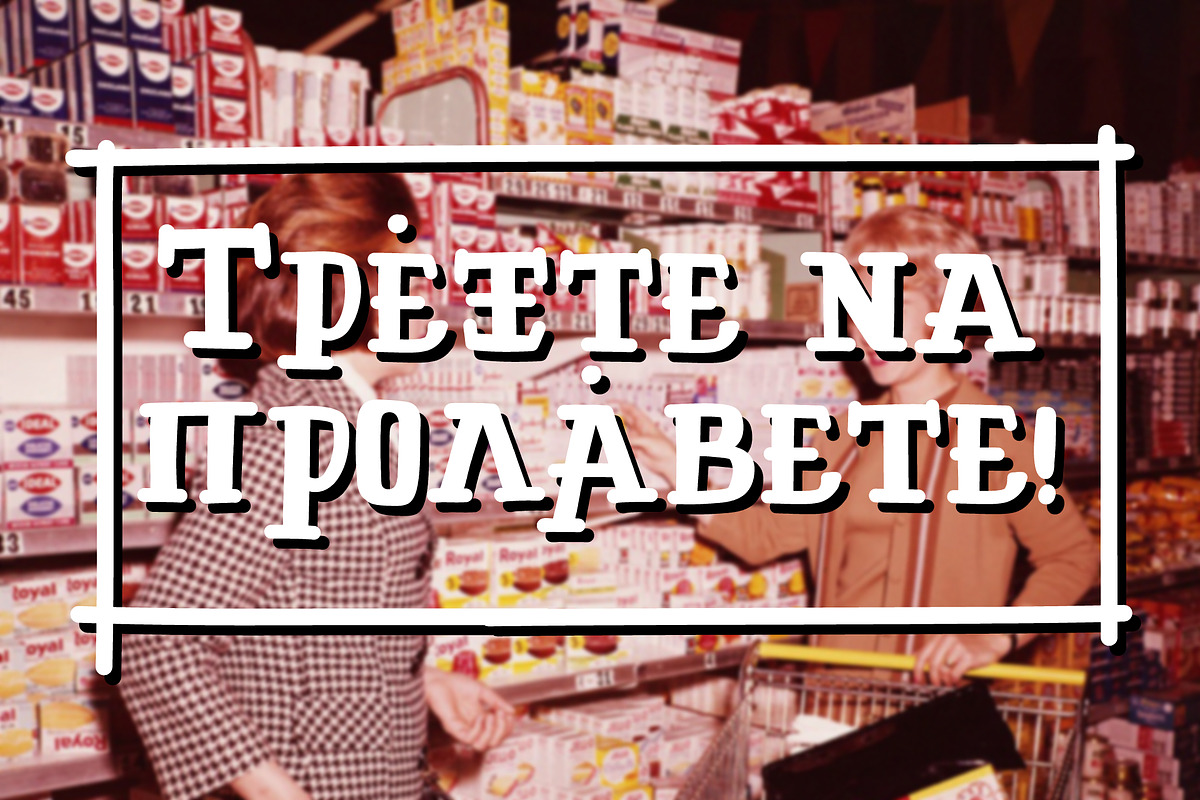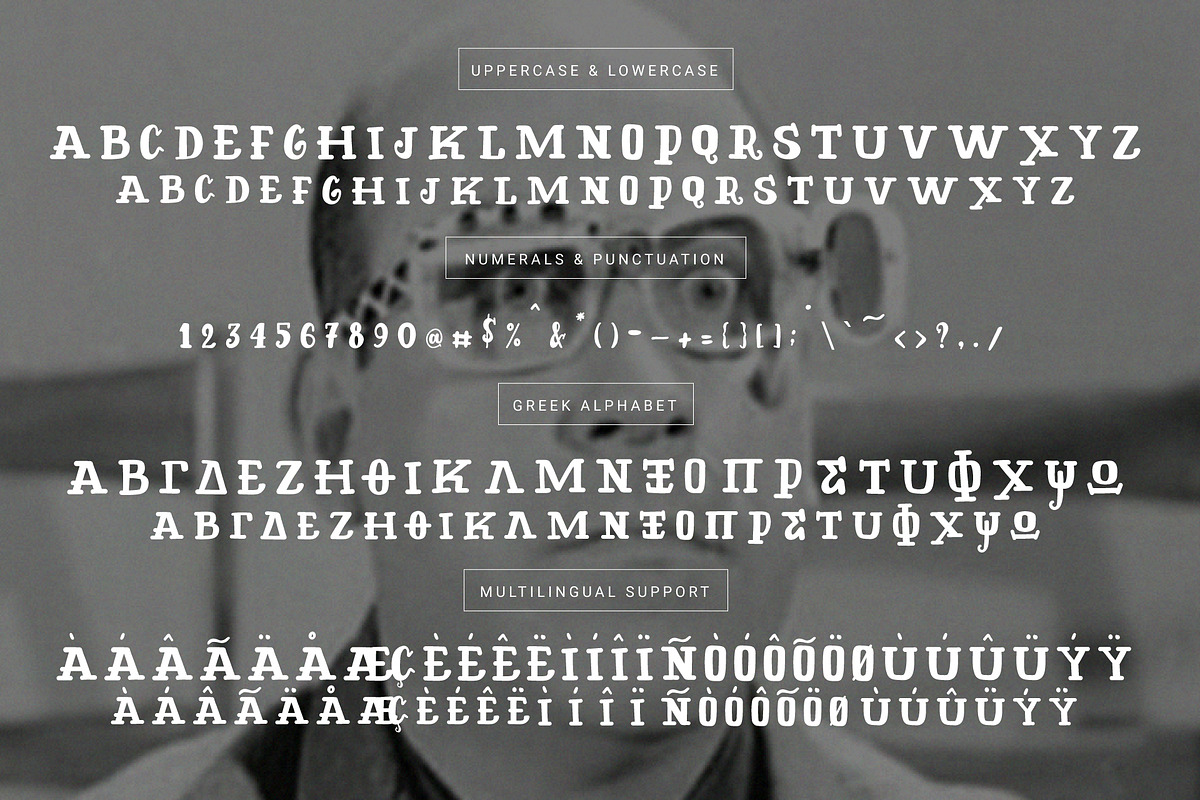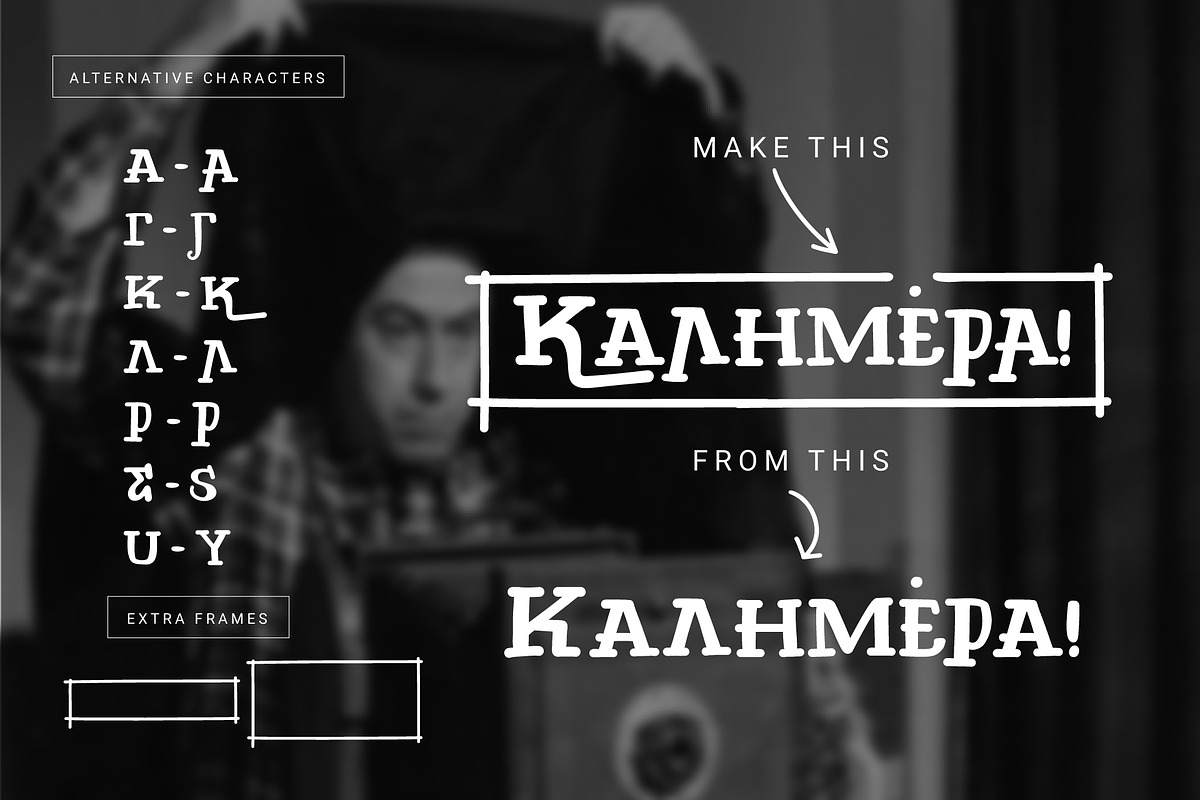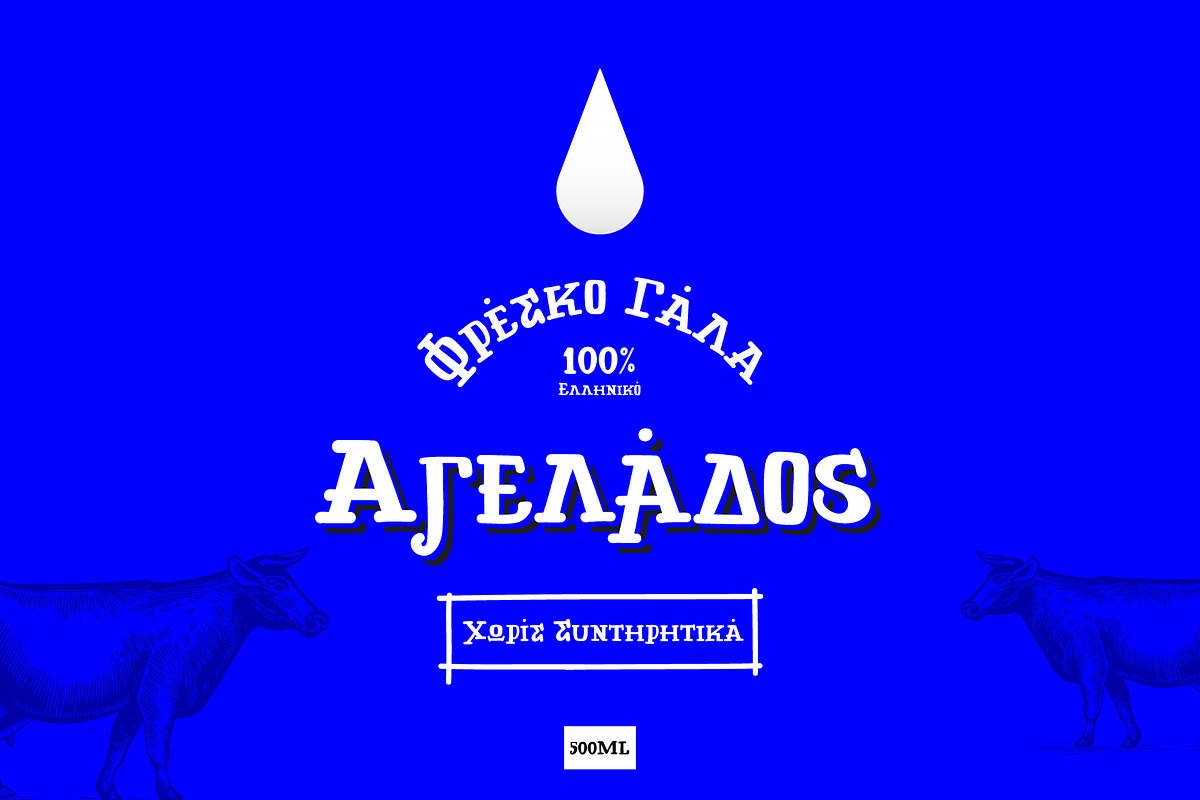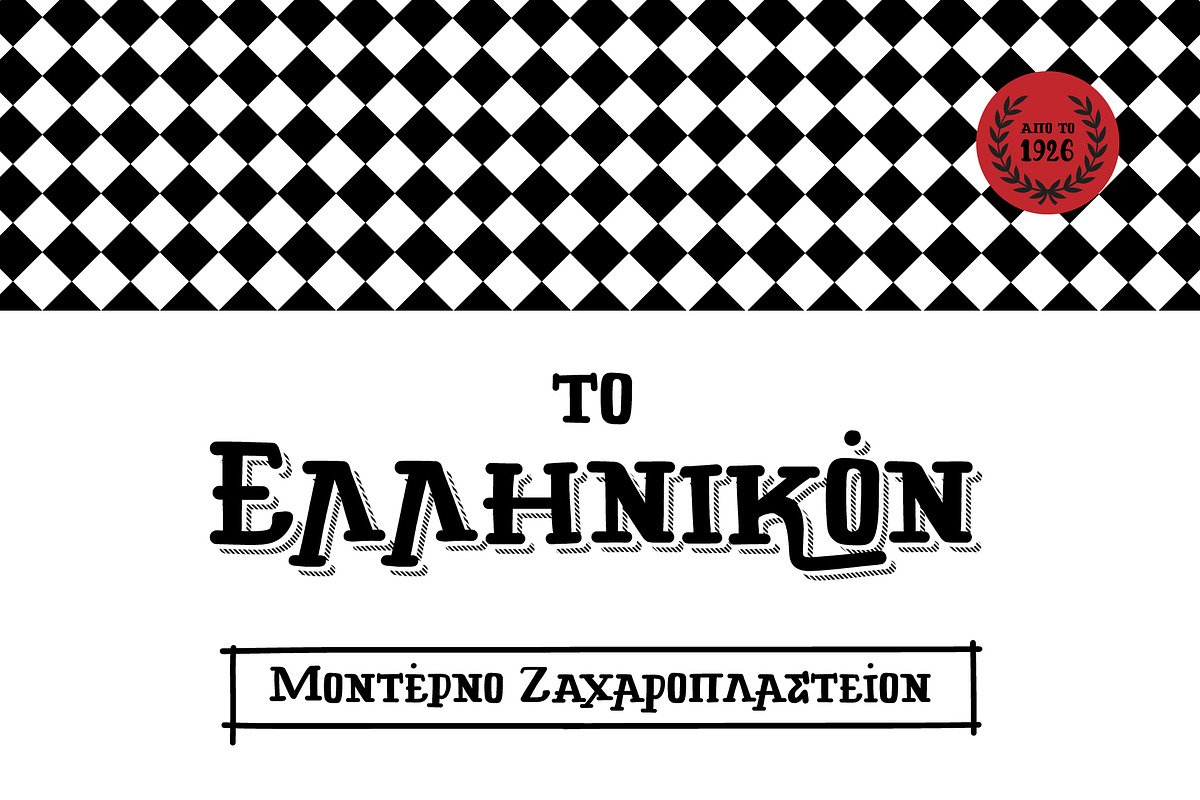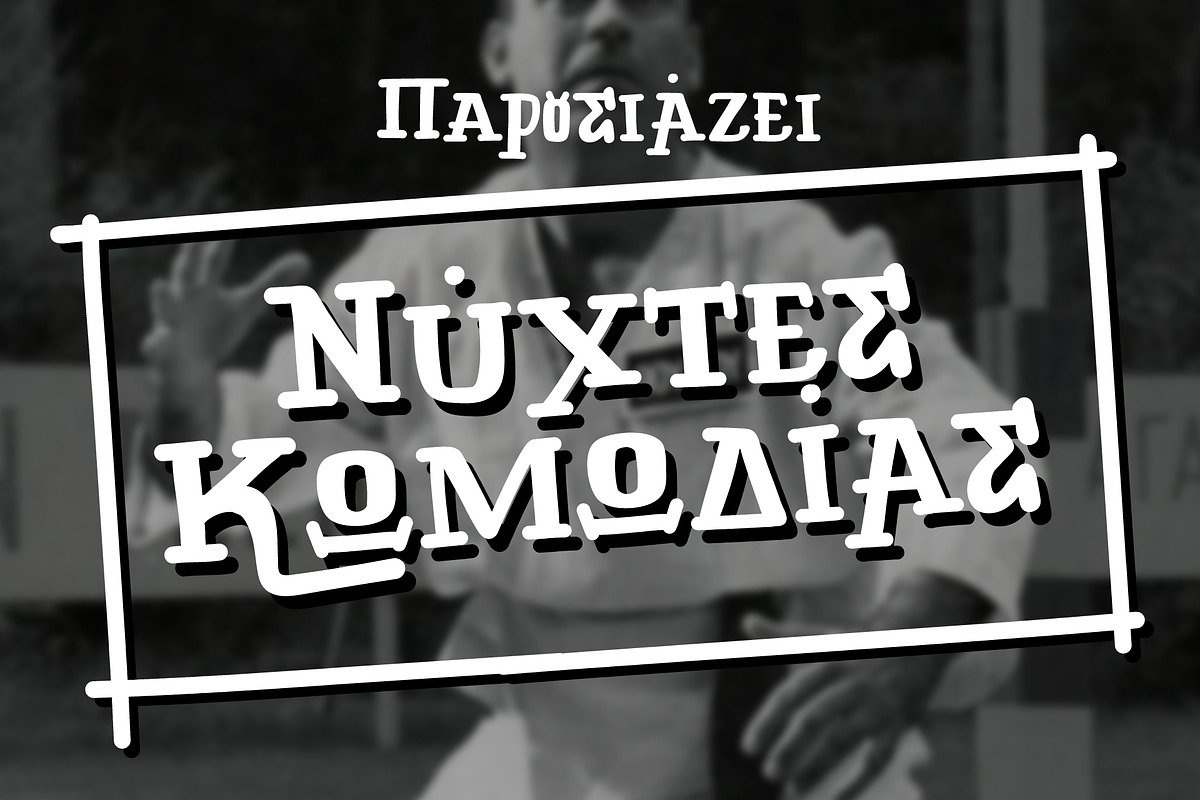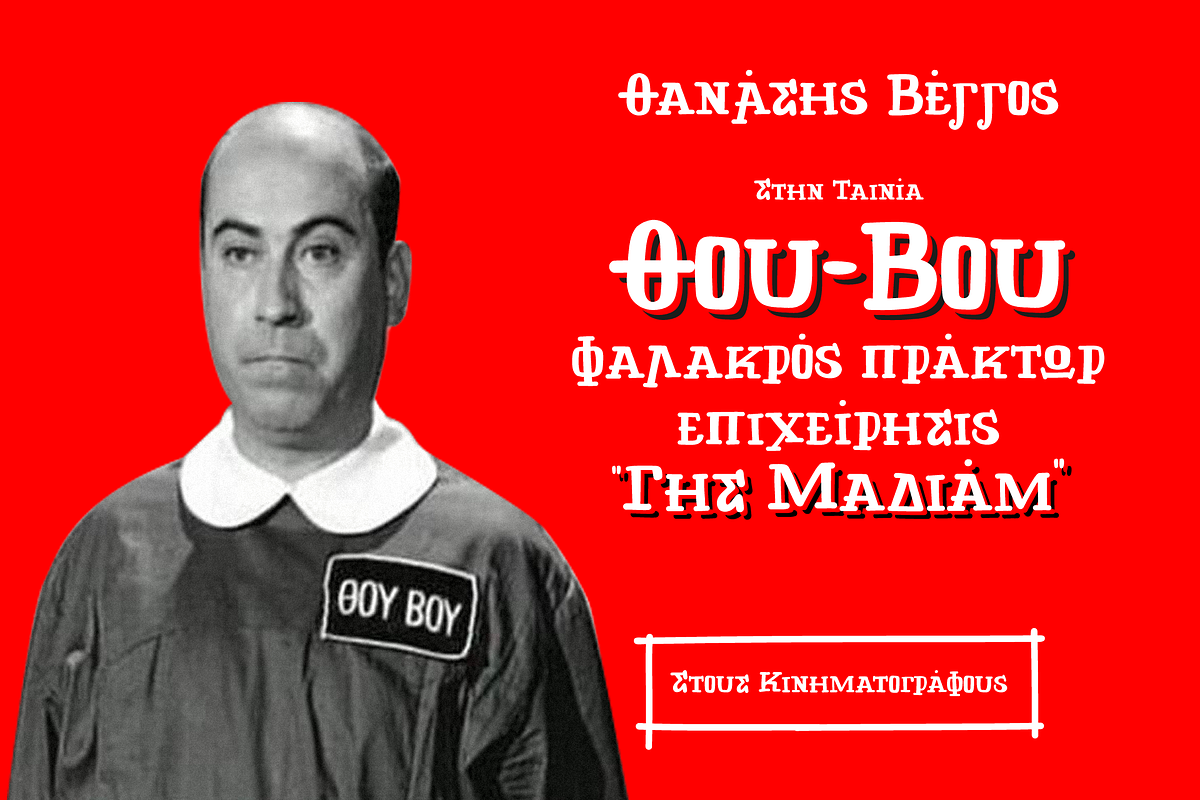
ELLINIKON HAND CRAFTED VINTAGE FONT
Introducing Ellinikon, a hand drawn vintage font, designed for your special projects and products.
I always loved the old Greek movies from 50's & 60's and I always admired the titles that hand letterers made from scratch with no technology, just by hand!
I wanted to bring this feeling to a font, so I created this one. An original hand drawn lettering font designed to give authenticity at your work.
Use it for your posters, headlines, mottos or your vintage brand project and many more.
The Greek language is fully covered, so go and create some spectacular Greek typography!
Of cource it supports international languages.
- Ellinikon font includes Open Type features with stylistic alternates and extra frames making the font look as authentic as possible.